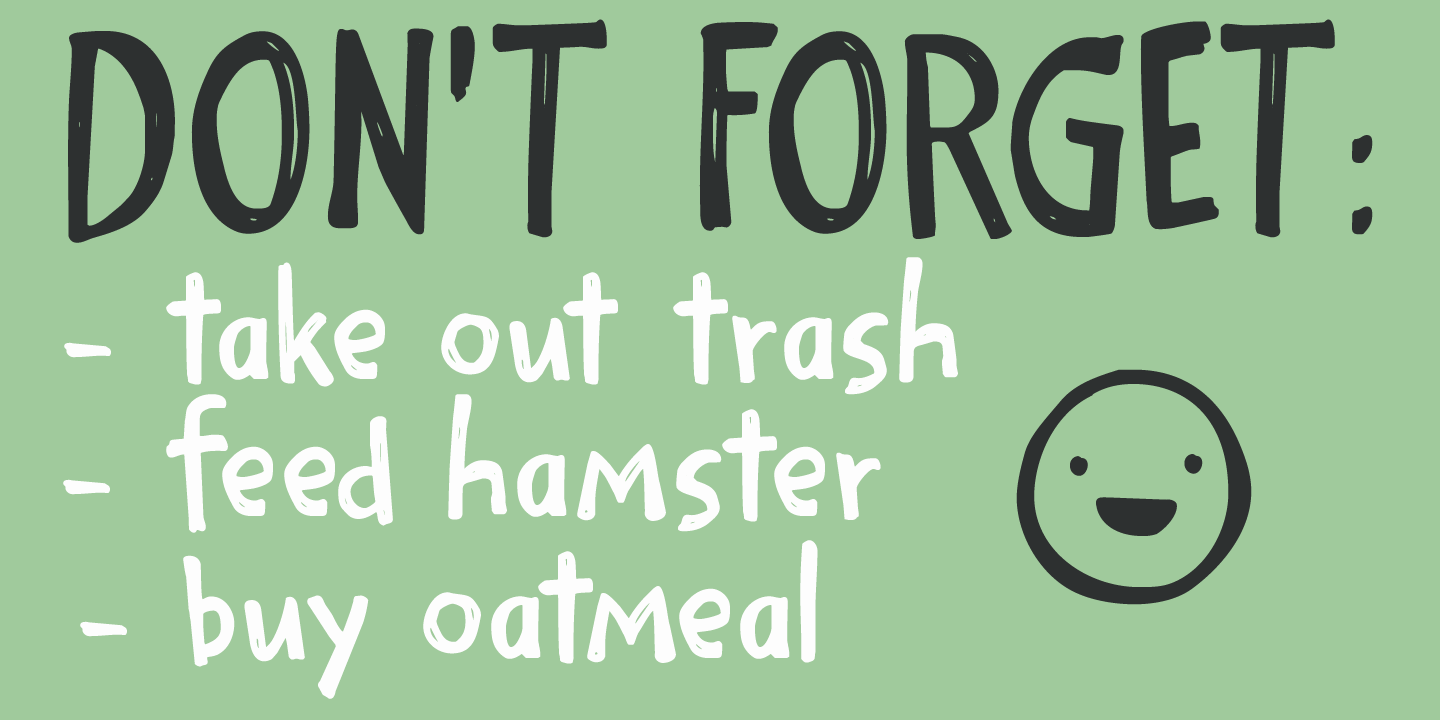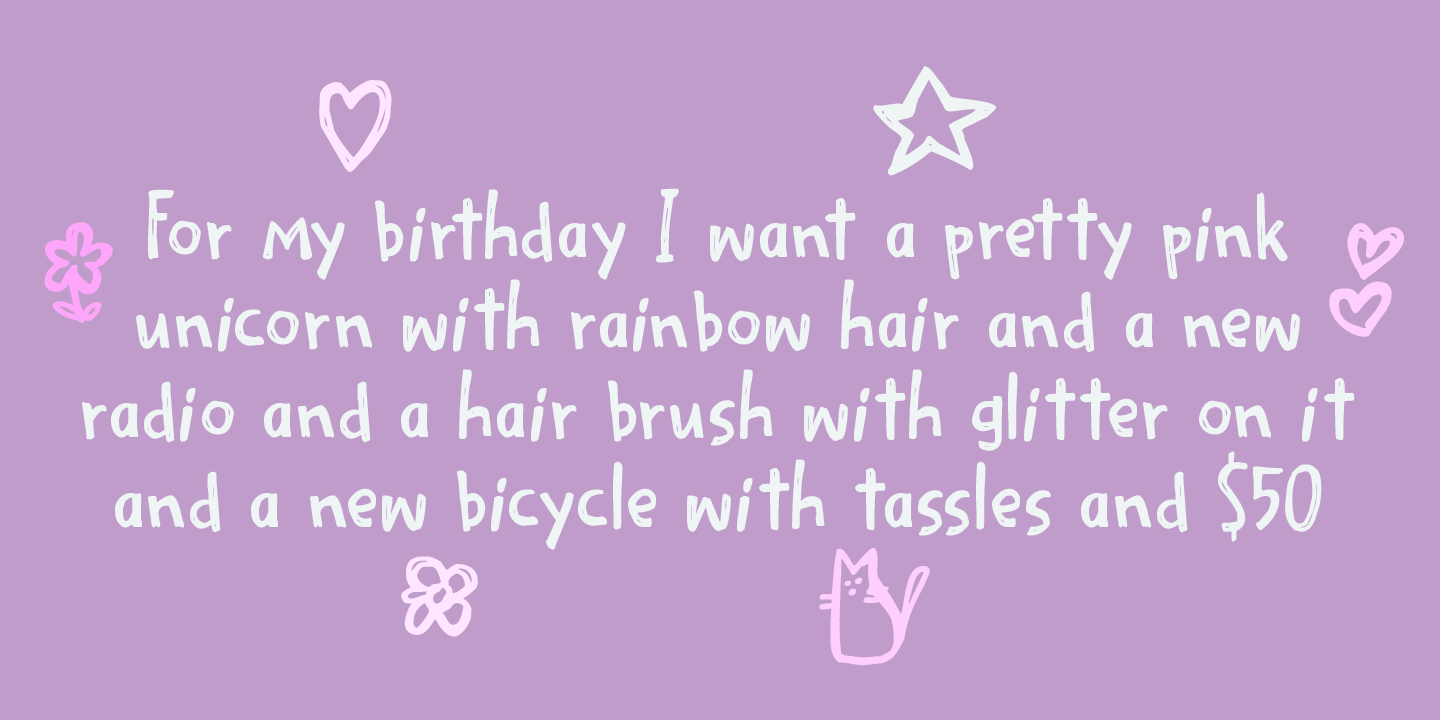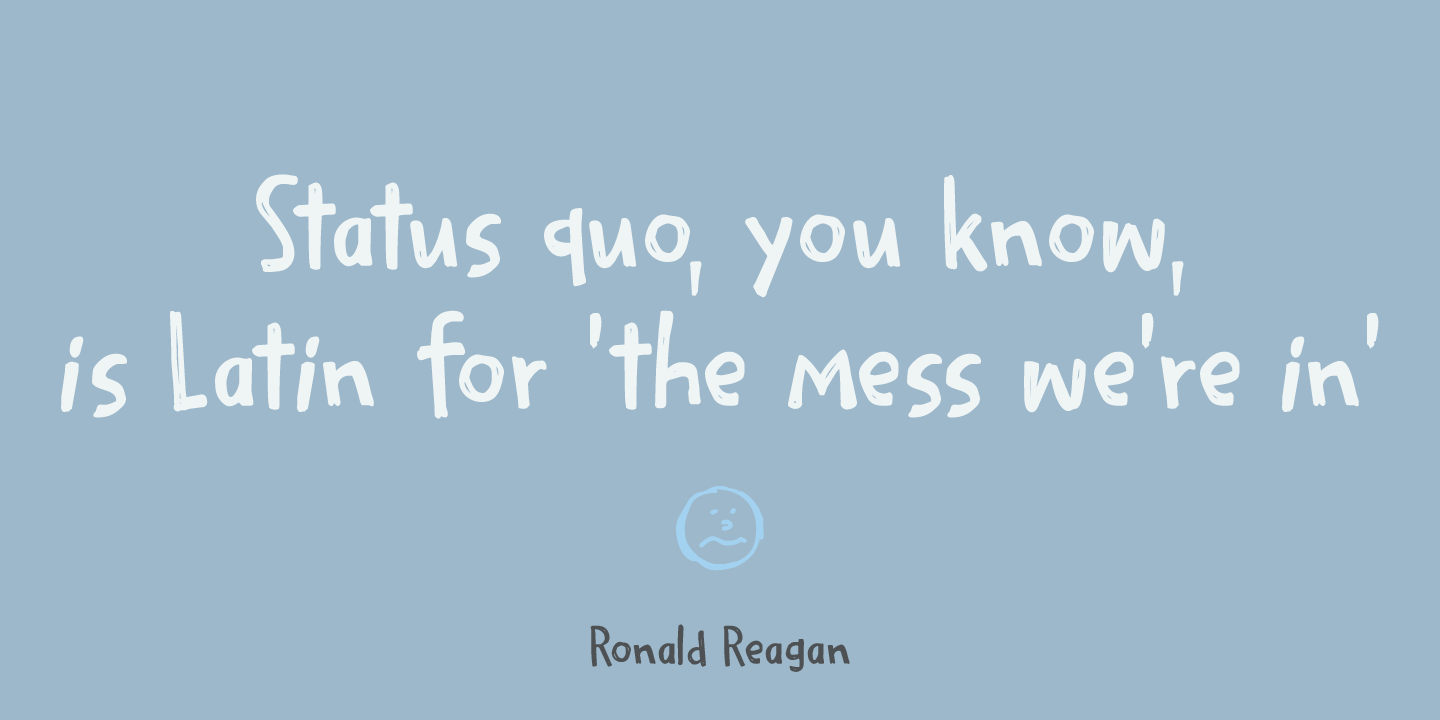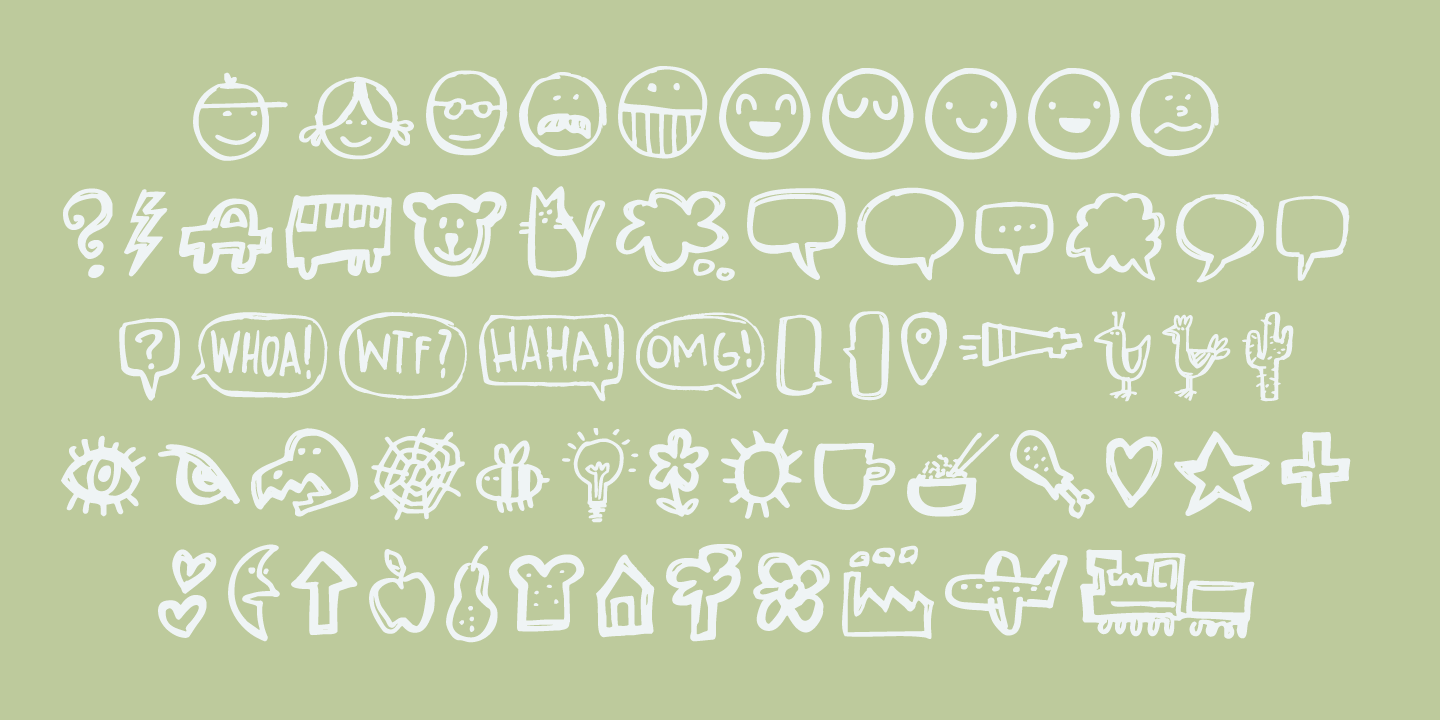
Scribble Note
My family and I recently bought a fixer-upper farm from the 1930 and I have been renovating and building for the last three+ months. I have a lot on my mind (as you can imagine), so I write little notes to keep track of what I need to do. Of course, since I?m often in the middle of something that needs to be done NOW, these notes are kind of messy.
I just finished the bathroom and toilet upstairs, so I could actually finish a new font! Scribble Note is an ode to all those messy notes I wrote.
Comes with a cool Doodle pack as well!